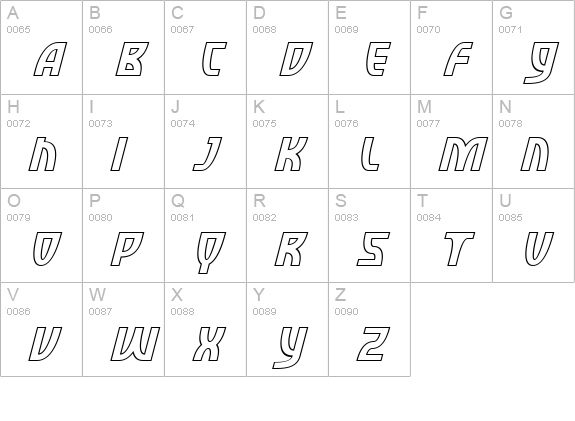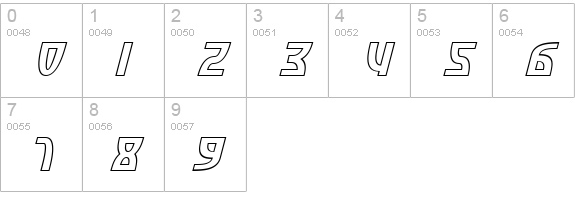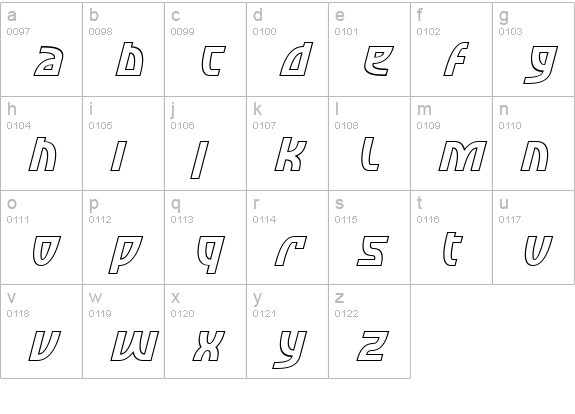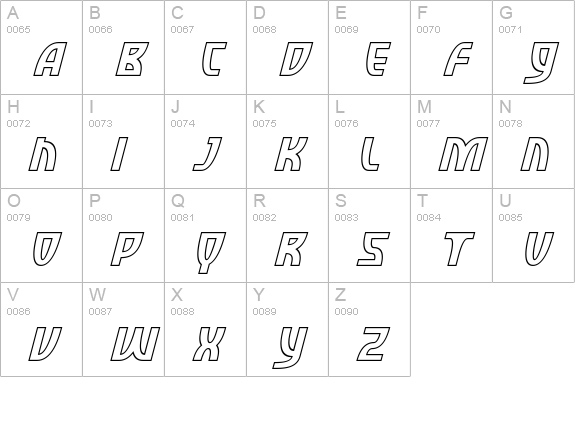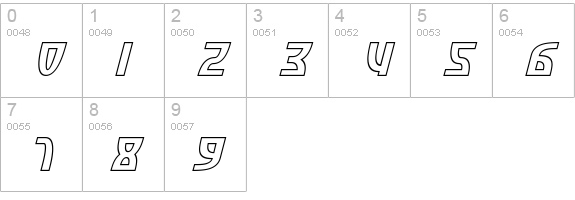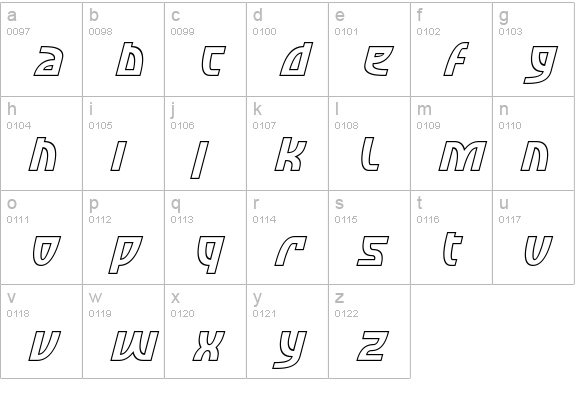
SF Retroesque Outline Italic Font Details
SF Retroesque Outline Italic is a distinctive, italic variant in the SF typeface family \xE2\x80\x94 well suited to design and typography projects.
SF Retroesque Outline Italic is a stunning font that seamlessly combines the timeless elegance of retro design with a modern twist. Its captivating and distinctive italic outline style evokes a sense of nostalgia, transporting you back to the golden age of vintage typography. This font is meticulously crafted with attention to detail, resulting in clean and crisp outlines that make it perfect for a variety of creative projects. Whether you're designing a poster, logo, or website, SF Retroesque Outline Italic will add a touch of sophistication and retro charm to your work. What sets SF Retroesque Outline Italic apart is not only its exceptional design but also its availability as a free download. Yes, you read that right - this font is freely available to download at FontsMarket.com, making it accessible to all designers and creatives who appreciate the beauty of retro typography. With SF Retroesque Outline Italic, you can unleash your creativity without any restrictions. Its versatility allows it to be used in both personal and commercial projects, giving you the freedom to bring your design visions to life. So, why wait? Download SF Retroesque Outline Italic today from FontsMarket.com and embark on a journey to create stunning and retro-inspired designs that will captivate your audience.